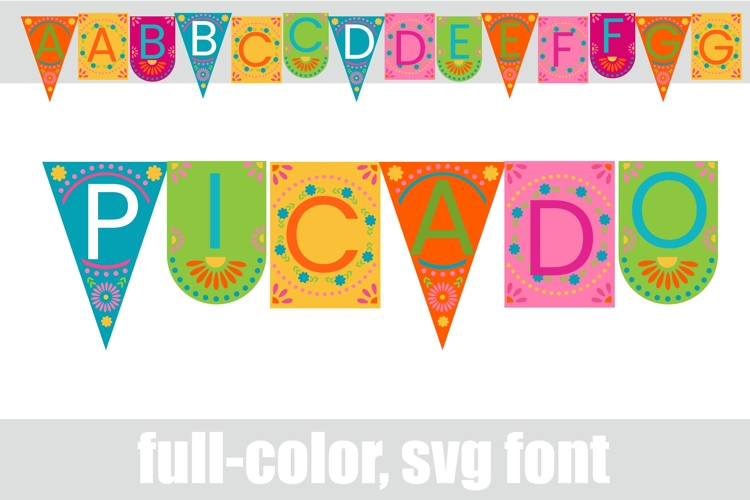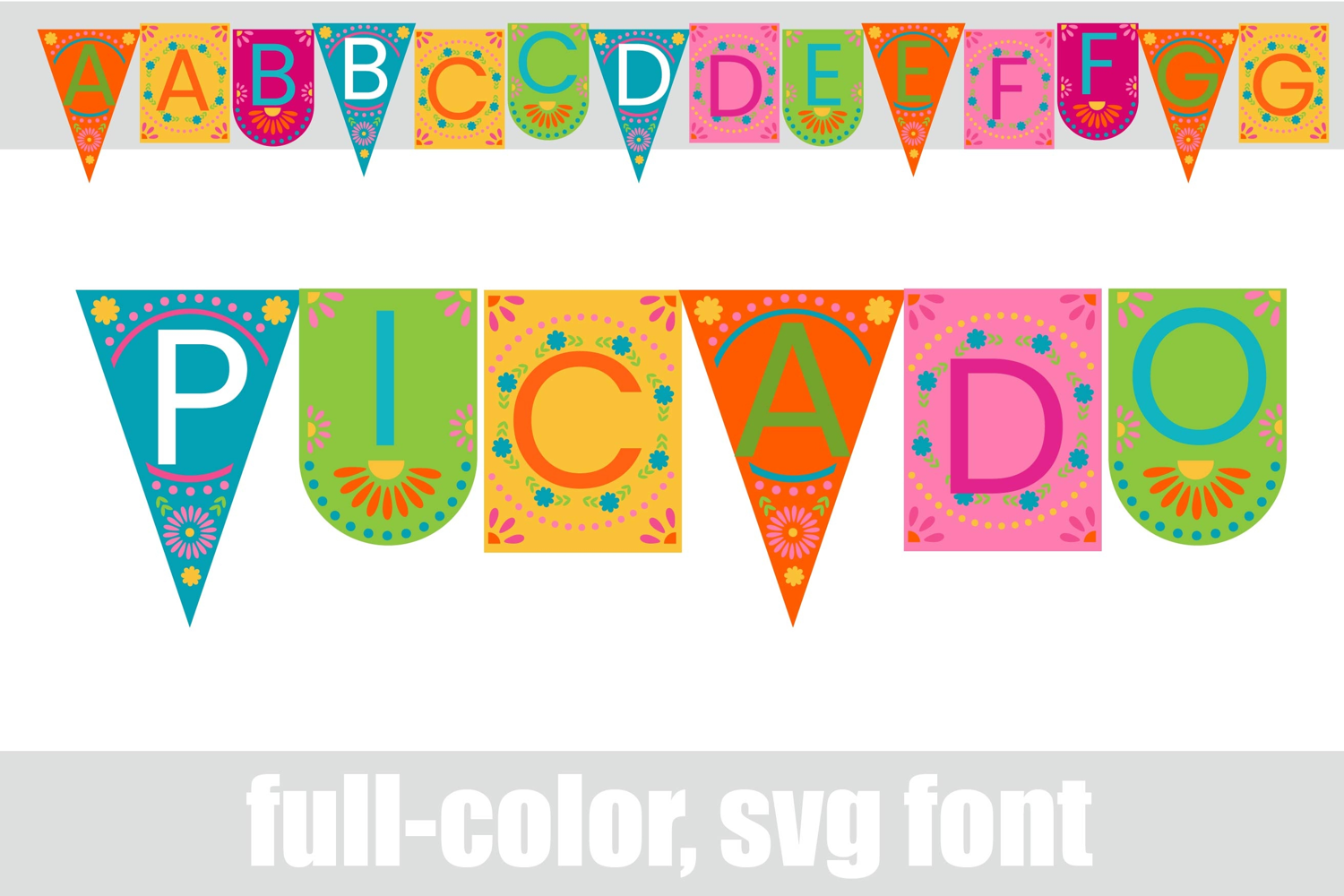
Picado Color Font
This full-color, brightly colored font features banner lettering with floral decor. There is an alt case of additional colors of each letter that you can access through your system's character map.